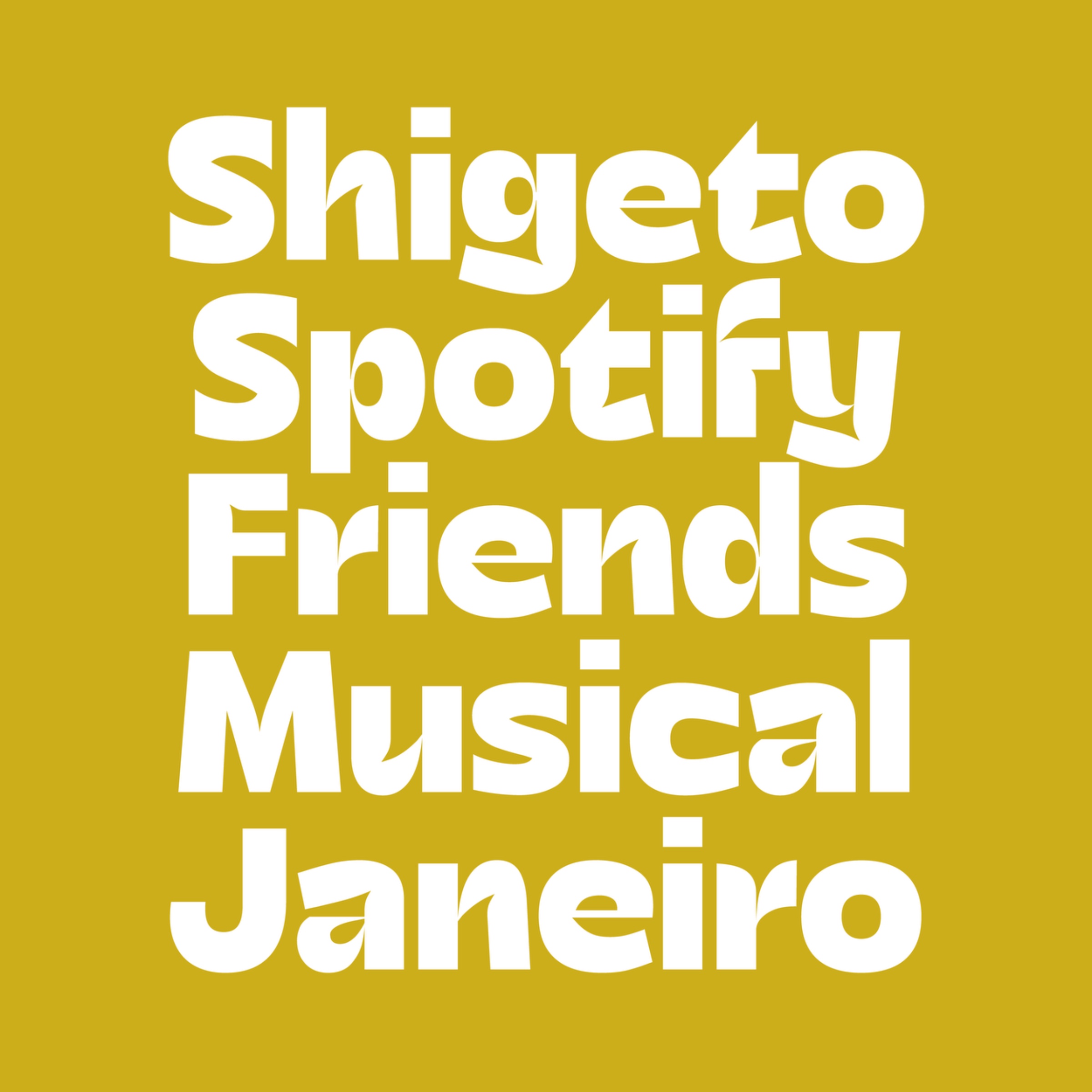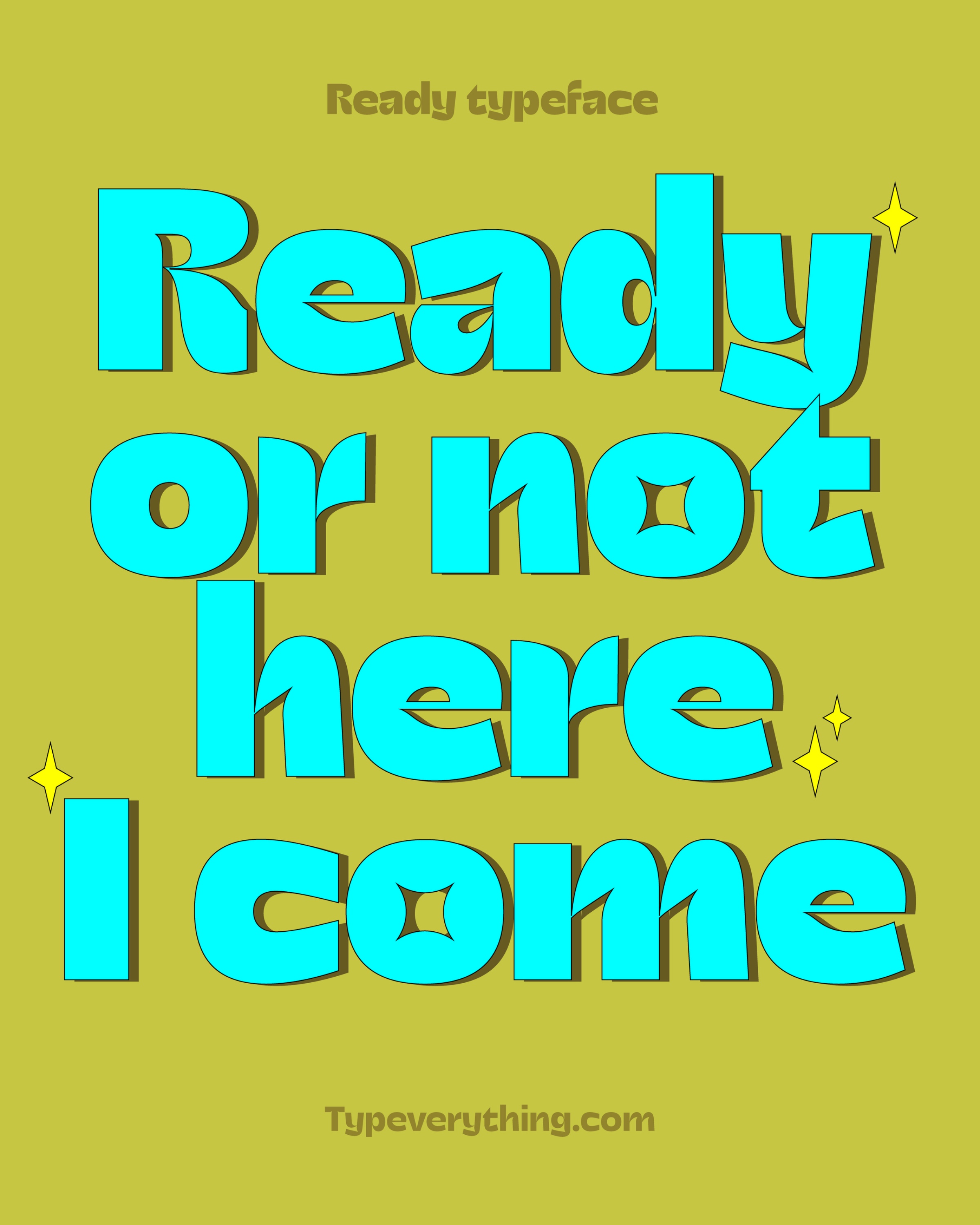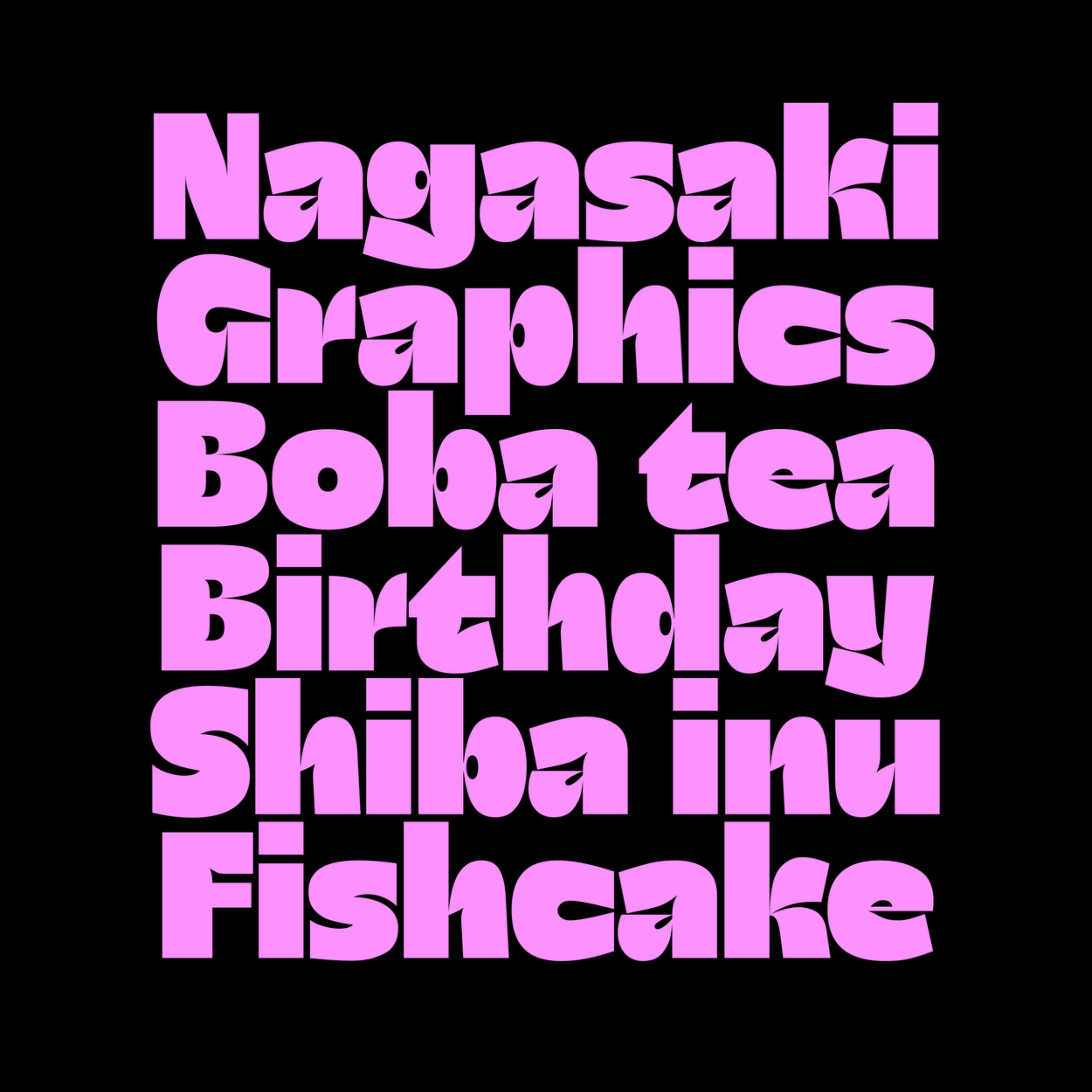
Ready Typeface
Ready is a new 8 weights typeface that brings back the fun in grotesk fonts. With a classic yet modern feel it will make your packshots/posters POP! It is available for Desktop or Web. The Variable file is included in the Full Family Desktop packs.